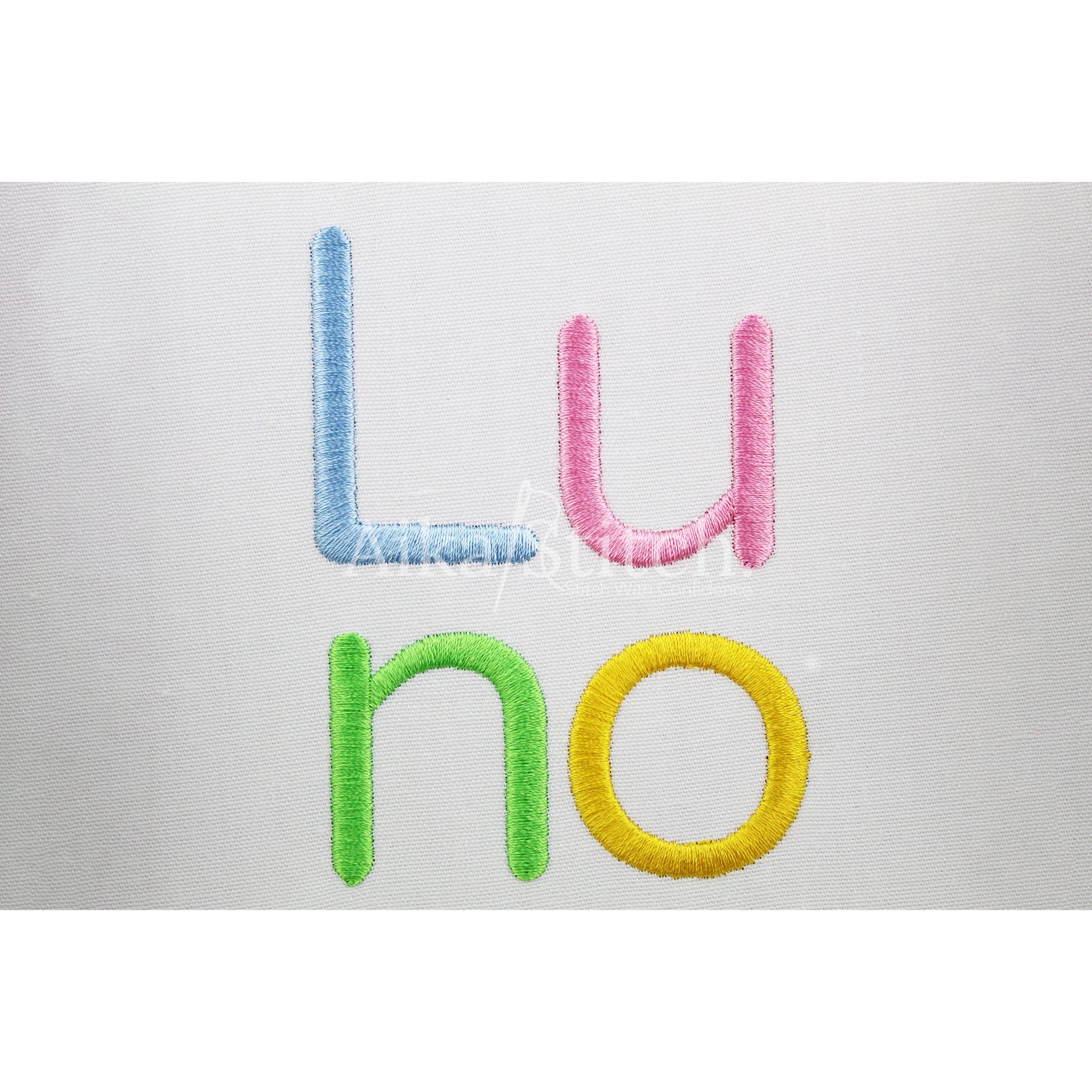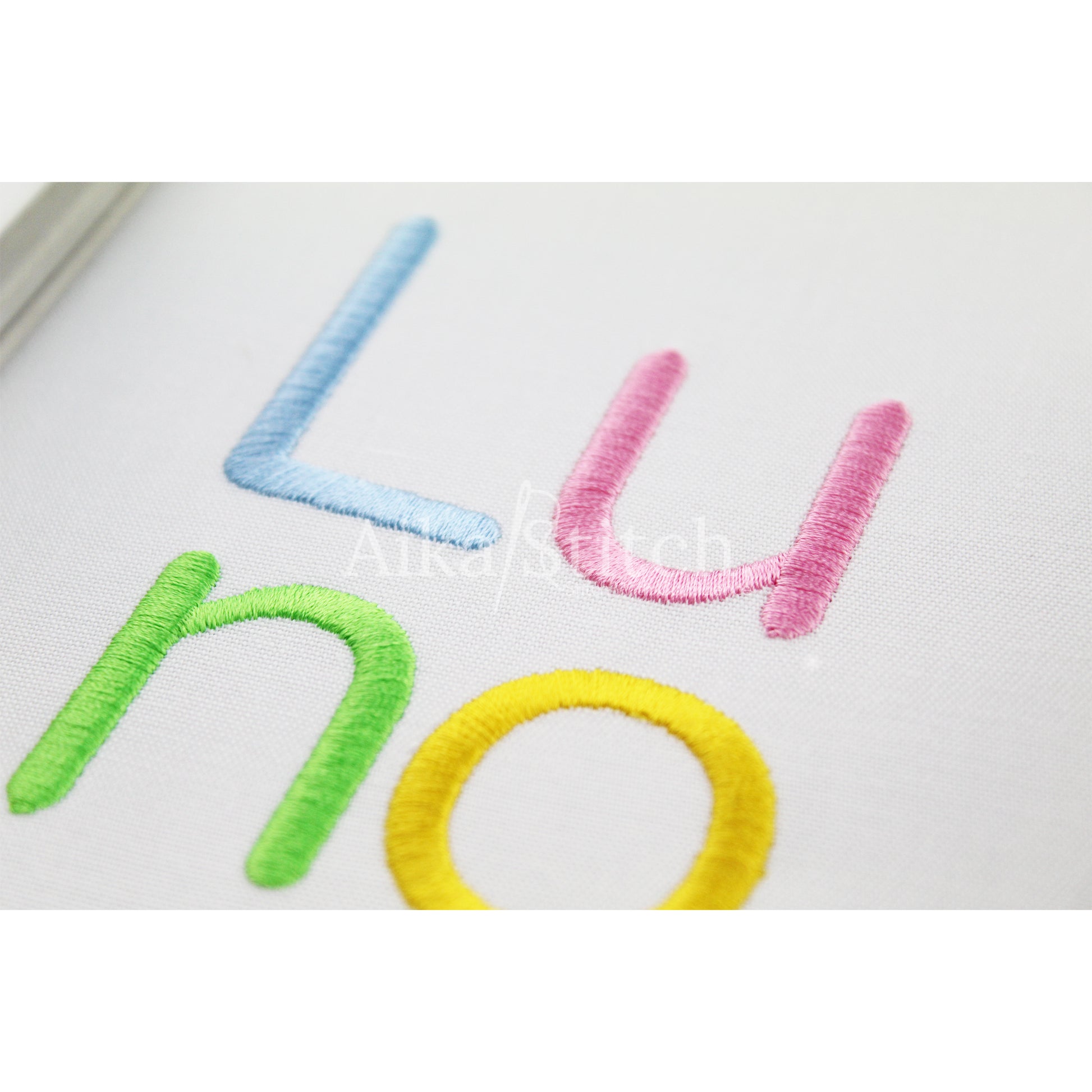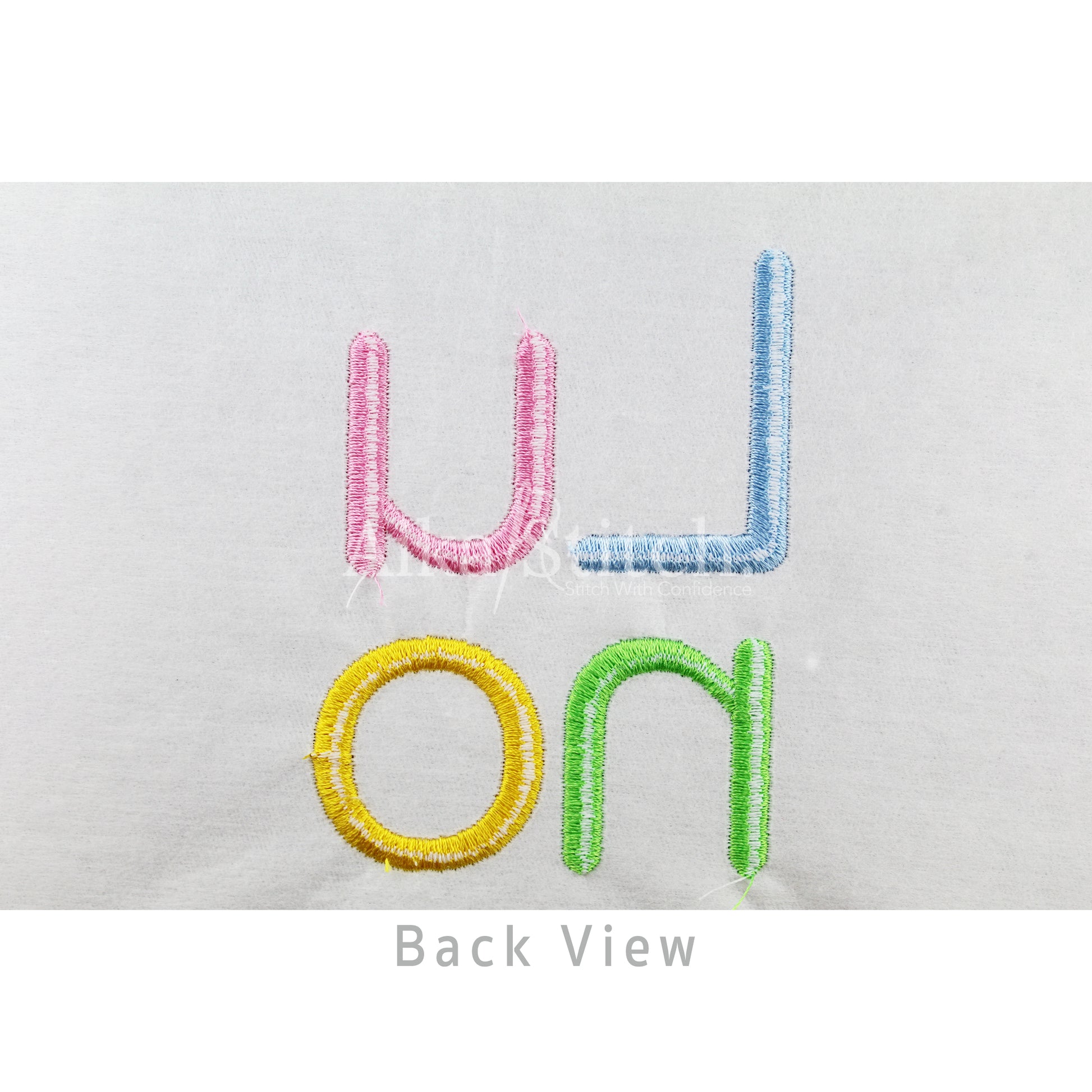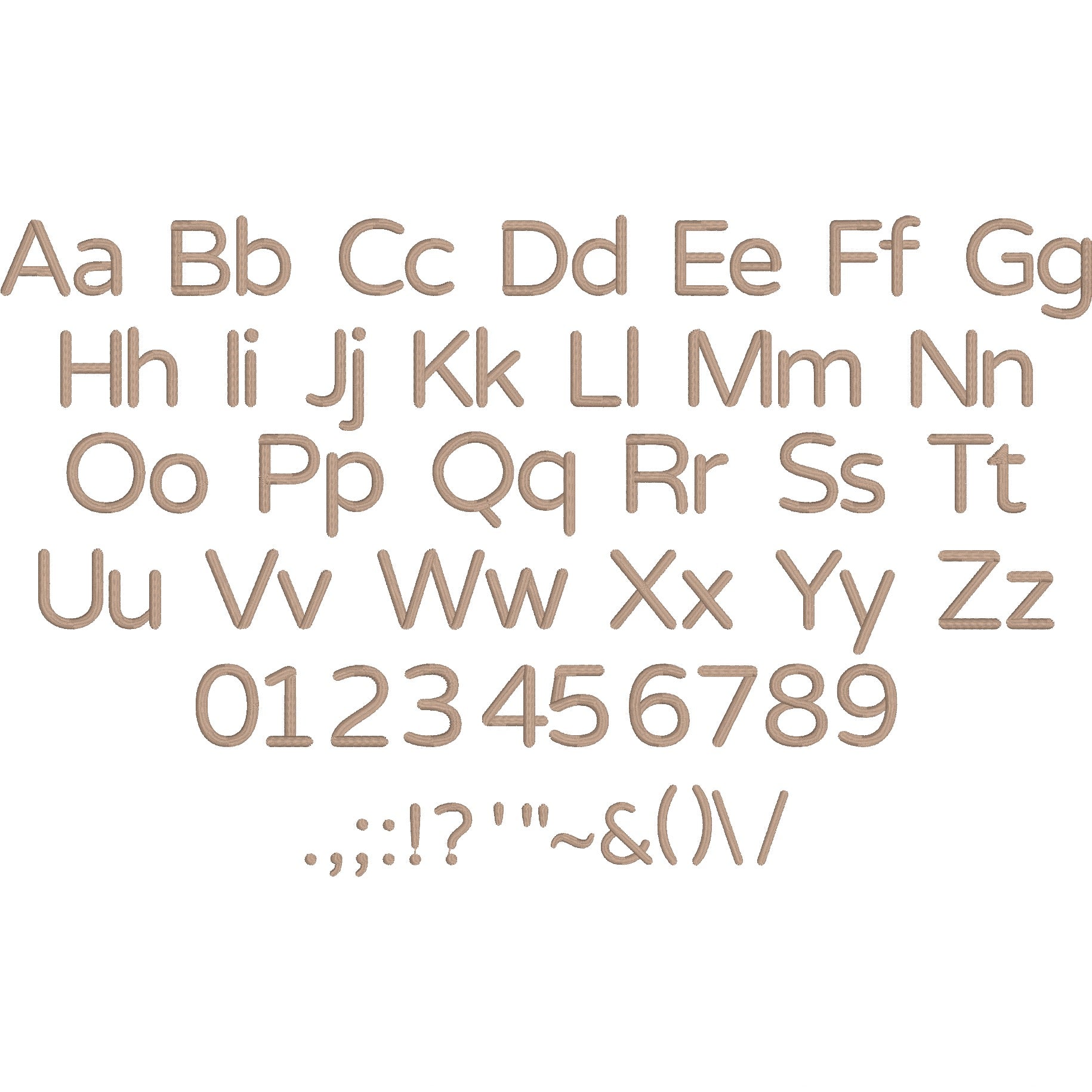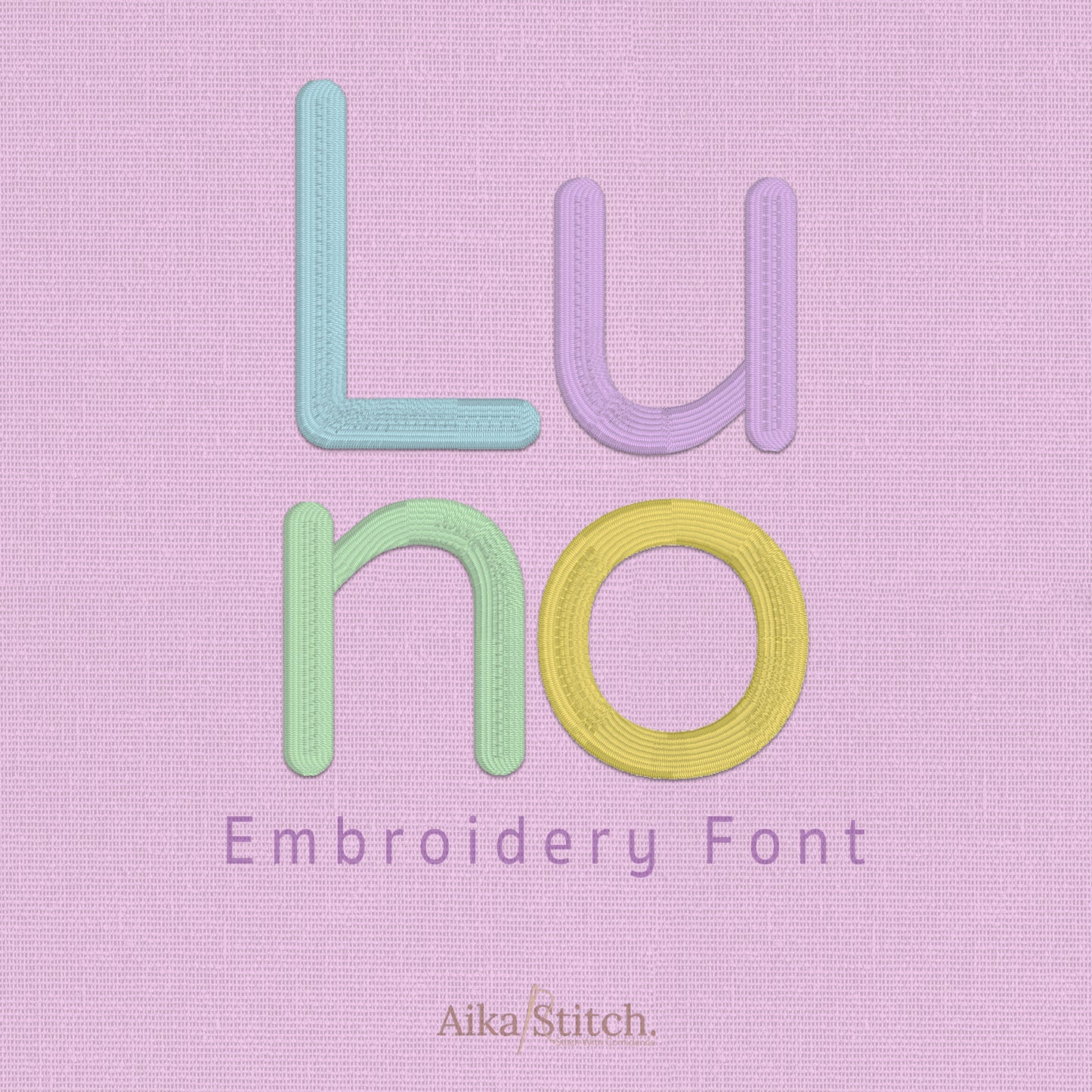
Luno Basic Rounded Embroidery Font | Native BX Included
Luno is a Simple Rounded Bold machine embroidery font featuring beautiful satin stitch lettering. Perfect for shirts, towels, hats, baby gifts, monograms, and small business embroidery projects.